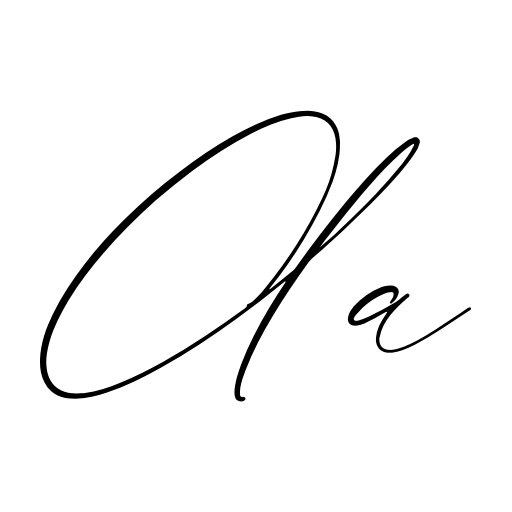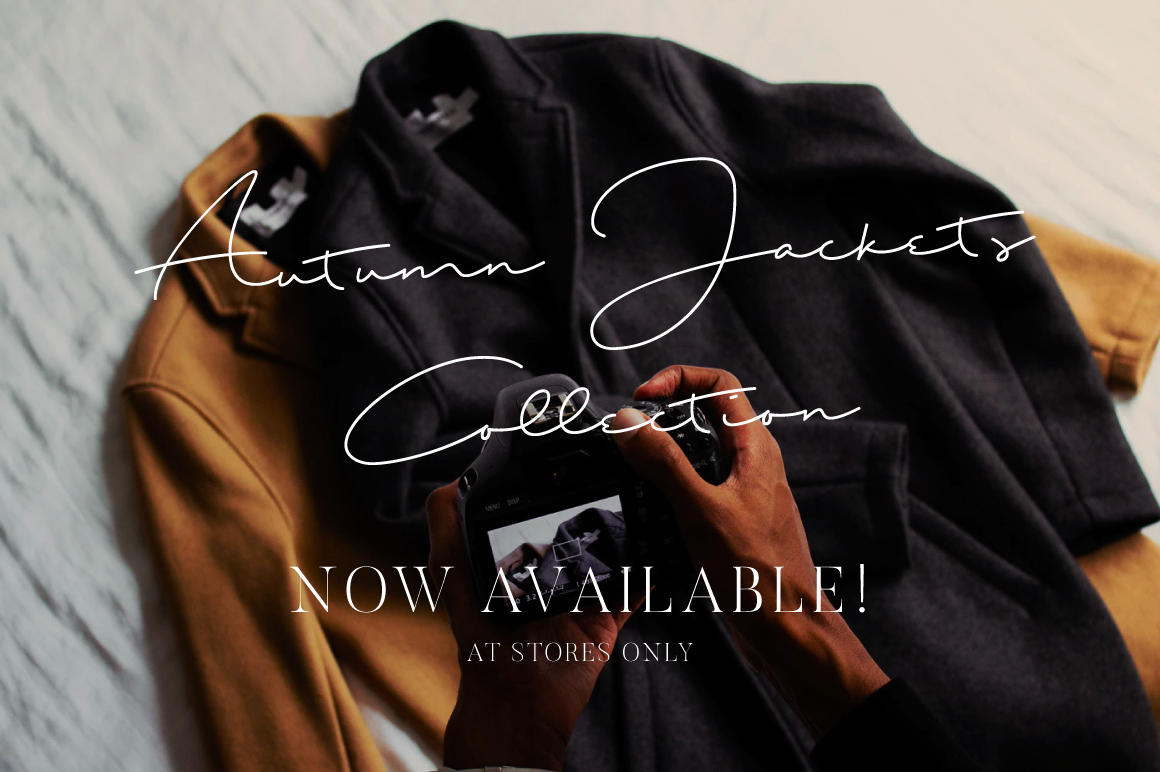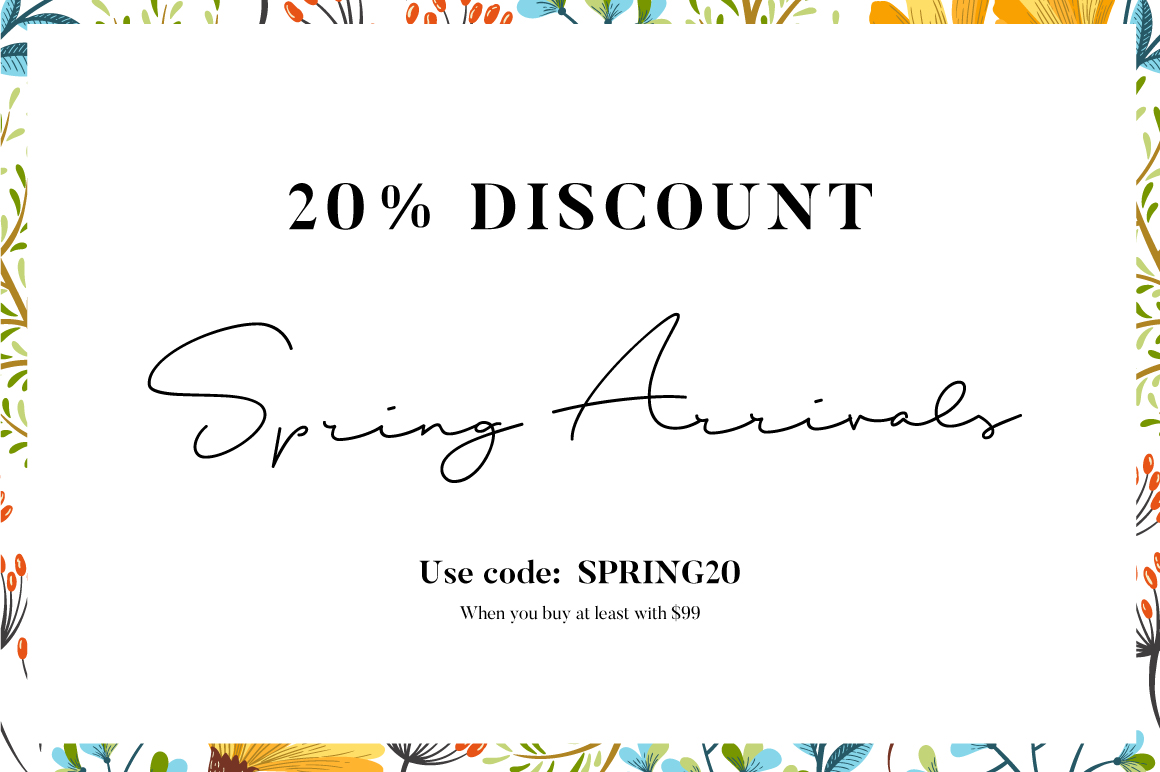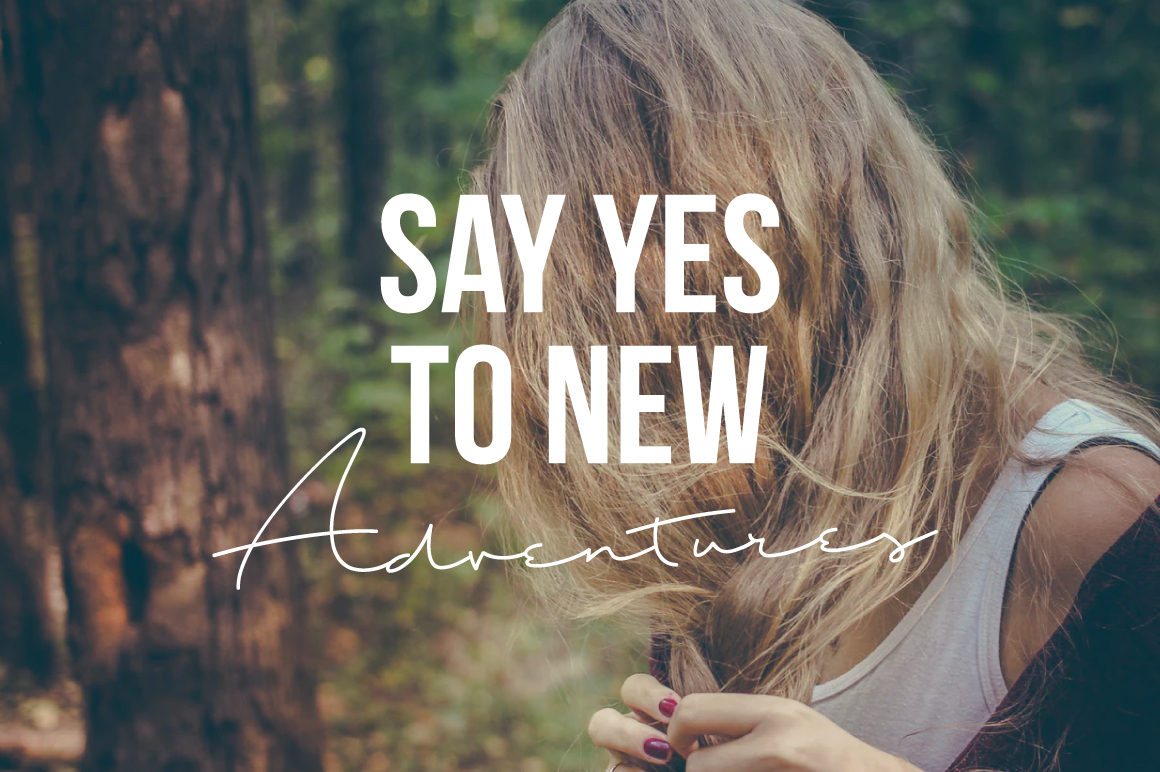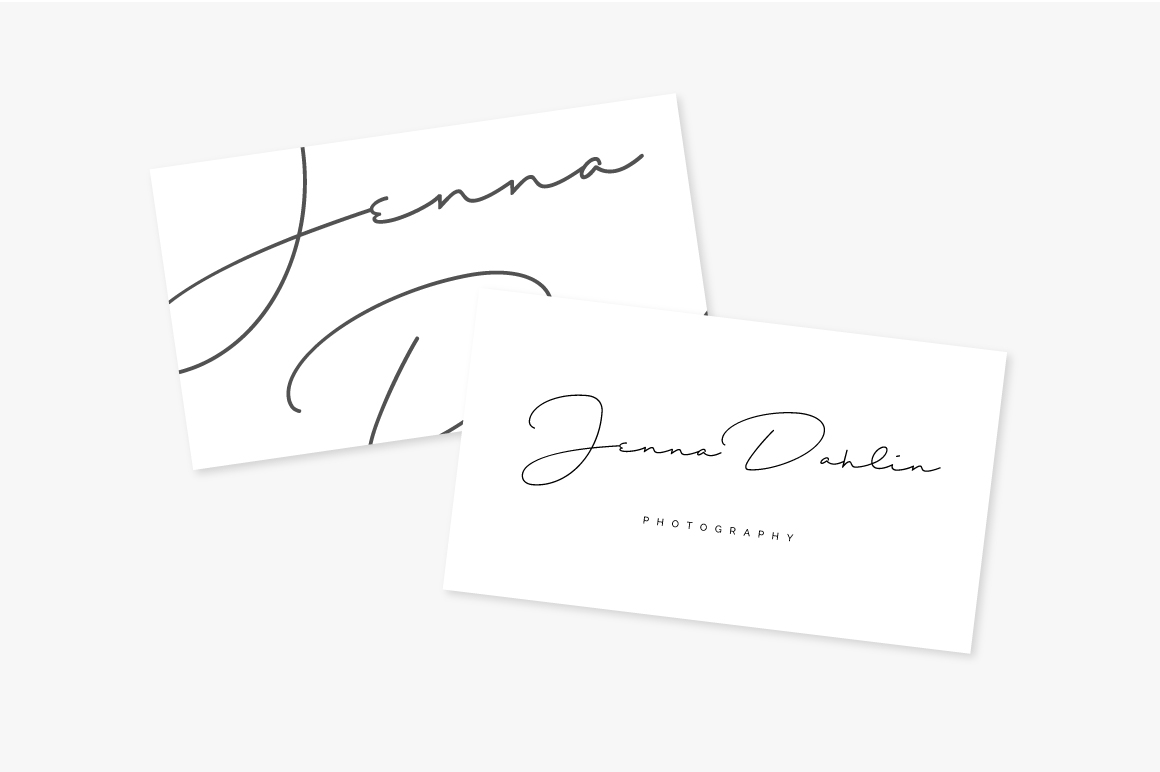
Shopping Script is a delicate, light-weight script font with a hand-drawn, casual elegance. Its thin, flowing lines and tall, airy letterforms give it a modern yet personal feel, making it perfect for stylish branding, invitations, and creative headlines where a touch of sophistication with a relaxed vibe is desired. This font works well in designs that aim to blend refinement with approachable charm.
Shopping Script
About Shopping Script